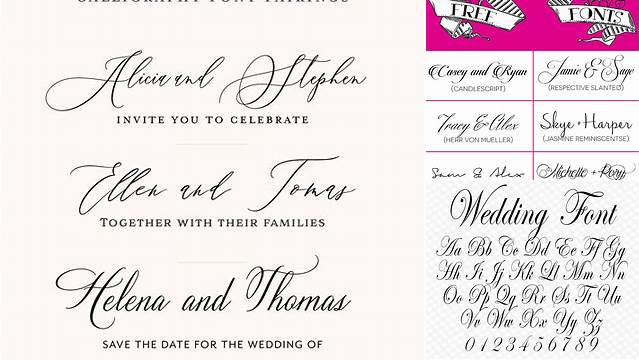
Free Cursive Fonts For Stunning Wedding Invitations
So, you're planning your big day, huh? Congratulations, guys! One of the most exciting parts of wedding planning is getting those invitations just right. And what's a wedding invitation without a beautiful, flowing cursive font? Finding the perfect font can feel like finding the perfect dress or the perfect venue – it needs to capture the essence of your special day. That's why we're diving deep into the world of free cursive fonts for wedding invitations. Yes, you heard that right – free! You don't have to break the bank to have stunning invitations. Let's explore the options and help you find the font that screams "you"!
Why Cursive Fonts are Perfect for Wedding Invitations
Let's be real, when it comes to wedding invitations, cursive fonts are the undisputed champions. They exude elegance, romance, and a touch of timeless charm that perfectly sets the tone for your celebration. But why is this the case? What makes these swooping, swirling letters so ideal for announcing your union? Well, think about it. Cursive fonts, with their connected strokes and graceful curves, mimic the fluidity of handwriting. This adds a personal touch to your invitations, making them feel more intimate and heartfelt. They whisper of handwritten love letters and cherished keepsakes, creating a sense of warmth and sincerity that perfectly reflects the love you share. Imagine your guests receiving an invitation adorned with delicate, flowing calligraphy. It immediately conveys a sense of sophistication and sets the stage for a memorable event. The visual appeal of cursive is undeniable. The intricate details and varied letterforms create a visual feast, drawing the eye and inviting your guests to delve into the details of your special day. It’s like a beautiful piece of art that also happens to be an invitation! Beyond the aesthetic appeal, cursive fonts also carry a certain weight of tradition. They evoke a sense of history and heritage, reminding us of classic wedding invitations and timeless love stories. Using a cursive font can subtly nod to this tradition while still allowing you to express your unique style and personality as a couple. The elegance of these fonts is versatile too. They pair beautifully with a variety of paper stocks, embellishments, and design styles. Whether you're going for a rustic-chic vibe, a modern minimalist aesthetic, or a classic black-tie affair, there's a cursive font out there that will complement your vision perfectly. You can use them for everything from the main invitation text to your names, dates, and even for creating elegant monograms. The key is to choose a font that is not only beautiful but also legible. You want your guests to be able to easily read the important details, so striking the right balance between style and clarity is crucial. We’ll talk more about legibility and font pairings later on, so keep reading!
Top Free Cursive Fonts for Wedding Invitations
Okay, let's get to the juicy part – the fonts! There are a plethora of free cursive fonts available online, but wading through them all can feel like an overwhelming task. Don't worry, guys, I've done the legwork for you! Here’s a curated list of some top-notch free cursive fonts that are perfect for adding that touch of elegance to your wedding invitations, along with some ideas on how to use them:
1. Great Vibes
Great Vibes is a classic choice for wedding invitations. It's a beautifully flowing script with elegant loops and flourishes. This font is highly legible, making it perfect for the main text of your invitation. The clean lines and graceful curves exude sophistication, making it an ideal choice for both formal and semi-formal weddings. Think black-tie affair or garden party elegance – Great Vibes can handle it all. What makes Great Vibes so versatile is its balance of elegance and readability. The letterforms are distinct and well-defined, preventing the script from becoming cluttered or difficult to decipher. This is crucial for wedding invitations, where clarity is paramount. You want your guests to be able to easily read the date, time, and location of your event, and Great Vibes ensures that they can. Imagine the words “You’re Invited” or the names of the happy couple rendered in this exquisite script. It immediately elevates the invitation, adding a touch of luxury without being ostentatious. The delicate swirls and flourishes catch the eye, but they don’t overwhelm the overall design. Instead, they add a subtle touch of glamour, making the invitation feel special and memorable. This font pairs beautifully with a variety of design styles, from minimalist and modern to traditional and romantic. You can use it on crisp, white cardstock for a classic look, or experiment with textured papers and soft colors for a more whimsical feel. It also works well with different printing techniques, such as letterpress or foil stamping, which can further enhance its elegance and sophistication. When using Great Vibes, consider pairing it with a simple sans-serif font for the body text or other secondary information. This creates a visual contrast that makes the cursive font stand out even more. Think of it as the perfect complement – the sans-serif provides a clean, modern counterpoint to the flowing script, resulting in a harmonious and balanced design.
2. Playlist Script
If you're looking for something a little more playful and modern, Playlist Script is an excellent choice. It has a casual, handwritten feel that's perfect for a relaxed or rustic-themed wedding. The brush-stroke style gives it a unique and personal touch, as if it were written just for your guests. Playlist Script brings a fresh and modern twist to the traditional cursive font, making it a wonderful choice for couples who want to break away from the norm while still maintaining an air of sophistication. The handwritten feel of this font is what sets it apart. It mimics the natural imperfections and variations of real handwriting, giving your invitations a personal and intimate touch. This is perfect for couples who want to convey a sense of warmth and authenticity to their guests. Imagine your guests receiving an invitation that looks as though you personally penned each and every word. It creates a connection and makes them feel like a cherished part of your celebration. The casual elegance of Playlist Script makes it incredibly versatile. It’s just as comfortable gracing the pages of a rustic-themed wedding invitation as it is adding a touch of flair to a modern, minimalist design. The brush-stroke style lends itself well to designs that incorporate natural elements, such as floral illustrations or textured paper. Think of kraft paper invitations adorned with Playlist Script, evoking a sense of down-to-earth charm and effortless style. Or picture it paired with delicate watercolor washes, creating a dreamy and romantic aesthetic. But Playlist Script isn't just for rustic or informal weddings. It can also bring a touch of personality to more formal affairs. By pairing it with elegant paper stocks and sophisticated color palettes, you can elevate its casual charm and create a truly unique and memorable invitation. Consider using it for your names or for a special quote or message, adding a personal touch to a classic design. When working with Playlist Script, it's important to keep legibility in mind. While its handwritten style is charming, it can be less legible than some other cursive fonts. To ensure clarity, use it sparingly and pair it with a clear, easy-to-read font for the body text. Also, consider the size of the font – larger sizes will enhance its readability and allow its unique brush-strokes to shine.
3. ** চ্যানেলের Script**
- চ্যানেলের Script* is another fantastic option that balances elegance with a touch of whimsy. This font has a flowing, calligraphic style with delicate lines and subtle flourishes. It's perfect for adding a touch of sophistication to your invitations without being overly formal. The beauty of * চ্যানেলের Script* lies in its ability to strike the perfect balance between elegance and playfulness. It’s a font that exudes sophistication without feeling stuffy or pretentious. The delicate lines and subtle flourishes add a touch of whimsy, making it an excellent choice for couples who want to convey a sense of joy and celebration. Picture your wedding invitations adorned with the graceful curves of * চ্যানেলের Script*. It immediately sets a tone of refined elegance, hinting at a sophisticated yet joyful occasion. The calligraphic style adds a touch of artistry, making your invitations feel like miniature works of art. It’s a font that invites your guests to anticipate a celebration filled with beauty and grace. What makes * চ্যানেলের Script* so versatile is its ability to adapt to various wedding styles and themes. It can seamlessly transition from classic and traditional designs to more modern and contemporary aesthetics. Pair it with crisp, white paper and classic black ink for a timeless look, or experiment with pastel shades and metallic accents for a more romantic and whimsical feel. Imagine using it for a garden wedding, where its delicate lines complement the natural beauty of the setting, or for a sophisticated ballroom affair, where it adds a touch of refined elegance. * চ্যানেলের Script* also works beautifully with different embellishments, such as delicate floral illustrations, embossed details, or even a touch of sparkle. These elements can further enhance its elegance and add a personalized touch to your invitations. The key is to use them sparingly, allowing the font to remain the focal point of the design. When incorporating * চ্যানেলের Script* into your wedding invitations, consider using it for your names, the date, and a few key phrases or headings. Pair it with a clean and legible sans-serif font for the body text to ensure that the important details are easy to read. This will create a visual hierarchy and allow the beauty of * চ্যানেলের Script* to truly shine. Remember, the goal is to create an invitation that is not only beautiful but also informative. * চ্যানেলের Script* helps you achieve both, adding a touch of elegance while ensuring that your guests have all the necessary information to celebrate with you.
4. Mr Dafoe
For a truly unique and vintage feel, Mr Dafoe is a fantastic choice. This font has a distinctive retro vibe with bold, swirly letters that are full of character. It's perfect for couples who want to add a touch of old-world charm to their invitations. Mr Dafoe instantly transports you to another era with its bold, swirly letters and distinctive retro vibe. It’s a font that exudes personality and charm, making it a wonderful choice for couples who want their wedding invitations to stand out from the crowd. Imagine your guests receiving an invitation adorned with the vintage flair of Mr Dafoe. It immediately sets a tone of playful elegance, hinting at a celebration that is both sophisticated and fun. The bold letterforms command attention, while the whimsical swirls add a touch of character and intrigue. It’s a font that invites your guests to step back in time and experience the romance of a bygone era. The unique aesthetic of Mr Dafoe makes it particularly well-suited for vintage-themed weddings, but it can also add a touch of personality to more contemporary designs. Think of invitations printed on aged paper with sepia-toned ink, evoking the charm of antique postcards and handwritten letters. Or picture it paired with bold colors and geometric patterns, creating a modern twist on a classic style. The key to working with Mr Dafoe is to embrace its distinctive personality. It’s a font that demands attention, so it’s important to use it thoughtfully and strategically. Consider using it for your names, the date, or a short, impactful phrase. Pair it with a simple and legible sans-serif font for the body text to ensure that the important details are clear and easy to read. When incorporating Mr Dafoe into your wedding invitations, think about the overall theme and aesthetic of your event. It’s a font that can add a touch of whimsy to a formal affair or reinforce the vintage charm of a more relaxed celebration. Experiment with different paper stocks, colors, and embellishments to create a design that truly reflects your personal style. Remember, Mr Dafoe is a font that loves to be noticed. So, don’t be afraid to let its unique personality shine through. With a little creativity and careful planning, you can use Mr Dafoe to create wedding invitations that are both memorable and charming.
5. ন্দত Script
If you're envisioning a truly elegant and refined wedding, ন্দত Script might be the perfect fit. This font has a sophisticated and flowing style with delicate lines and graceful curves. It exudes a sense of timeless beauty, making it ideal for formal wedding invitations. ন্দত Script is the epitome of refined elegance, a font that embodies timeless beauty and sophistication. Its flowing style, delicate lines, and graceful curves create a sense of classic charm, making it an ideal choice for couples who envision a formal and elegant wedding celebration. Imagine your guests receiving an invitation adorned with the exquisite calligraphy of ন্দত Script. It immediately sets a tone of understated luxury, hinting at a celebration that is both sophisticated and romantic. The flowing letterforms evoke a sense of grace and artistry, while the delicate lines add a touch of ethereal beauty. It’s a font that invites your guests to anticipate an event filled with timeless elegance and refined details. The versatility of ন্দত Script lies in its ability to seamlessly complement a variety of wedding styles and themes. It’s just as comfortable gracing the pages of a traditional black-tie invitation as it is adding a touch of sophistication to a more contemporary design. Pair it with crisp, white paper, classic black ink, and delicate embossing for a truly timeless look, or experiment with soft, pastel shades and subtle metallic accents for a more romantic and ethereal feel. Think of invitations adorned with ন্দত Script and delicate floral illustrations, evoking the charm of a classic fairytale wedding, or picture it paired with modern typography and clean lines, creating a sophisticated and contemporary aesthetic. When incorporating ন্দত Script into your wedding invitations, pay close attention to the details. The font’s delicate lines require careful printing to ensure clarity and prevent any blurring or imperfections. Consider using high-quality paper and a professional printing service to achieve the best results. To make the most of ন্দত Script's elegance, use it sparingly and strategically. It’s best suited for your names, the date, and a few key phrases or headings. Pair it with a clean and legible sans-serif font for the body text to ensure that all the important details are easy to read. This will create a visual hierarchy and allow the beauty of ন্দত Script to truly shine.
Tips for Using Cursive Fonts on Wedding Invitations
Okay, so you've picked out your perfect cursive font. Awesome! But choosing the font is just the first step. Now, you need to use it effectively to create invitations that are both beautiful and functional. Here are some tips to keep in mind:
Legibility is Key: This is the golden rule of font selection. No matter how gorgeous a font is, if your guests can't read it, it's a no-go. Make sure the cursive font you choose is clear and easy to decipher, especially for important details like the date, time, and location. If you're worried about legibility, consider using a larger font size or pairing the cursive font with a simpler, sans-serif font for the body of the text. Think of it this way: your invitations are meant to inform as well as impress. They need to convey essential information in a way that is clear and accessible to everyone. A beautifully designed invitation is only effective if it can be easily read and understood. Legibility is not just about choosing the right font; it’s also about considering the overall design of your invitation. Factors such as the contrast between the text and the background, the spacing between letters and words, and the size and weight of the font all play a role in how easy it is to read. If you’re using a dark font on a light background, make sure there’s sufficient contrast to make the text stand out. Similarly, if you’re using a light font on a dark background, ensure that the background isn’t too busy or distracting. The spacing between letters and words can also significantly impact legibility. If the letters are too close together, they can become difficult to distinguish, making the text appear cluttered. Conversely, if the letters are too far apart, the text can feel disjointed and lose its flow. Experiment with different spacing options to find the sweet spot that maximizes readability. The size and weight of the font are equally important. A font that is too small can be difficult to read, especially for those with visual impairments. A font that is too thin may also appear faint and hard to see. On the other hand, a font that is too large or too bold can overwhelm the design and make the invitation look cluttered. The key is to strike a balance that ensures readability without sacrificing the overall aesthetic appeal. Remember, the goal is to create an invitation that is both visually stunning and easy to understand. By prioritizing legibility, you’ll ensure that your guests receive all the important information they need while also appreciating the beauty of your design.
Pairing is Caring: Cursive fonts are often best paired with a simpler, sans-serif font. This creates a visual balance and prevents your invitation from looking too busy. Use the cursive font for your names or headings, and the sans-serif font for the body of the text. The art of font pairing is crucial in creating a visually harmonious and effective design. When it comes to wedding invitations, where elegance and clarity are paramount, pairing a cursive font with a simpler sans-serif font is a classic and foolproof approach. Think of it as creating a dialogue between two distinct voices. The cursive font, with its flowing lines and graceful curves, takes center stage, adding a touch of romance and sophistication. Meanwhile, the sans-serif font, with its clean lines and straightforward letterforms, provides a grounding element, ensuring that the message is clear and easy to read. The contrast between the two fonts is what makes the pairing so effective. The cursive font adds a touch of personality and flair, while the sans-serif font provides a sense of stability and order. This visual balance is essential in preventing your invitation from looking too cluttered or overwhelming. Imagine an invitation where every word is written in a swirling, elaborate cursive font. While it might seem beautiful at first glance, it would quickly become difficult to decipher and the overall message would get lost. By using the cursive font sparingly, for your names, headings, or other key phrases, you allow it to shine without sacrificing legibility. The sans-serif font, on the other hand, can be used for the body of the text, where clarity is essential. This includes details such as the date, time, location, and any other important information that your guests need to know. A clean and simple sans-serif font ensures that these details are easily readable, allowing your guests to quickly grasp the essential information. When choosing a sans-serif font to pair with your cursive font, look for one that complements the style and weight of the cursive font. A heavier sans-serif font can provide a strong contrast to a delicate cursive font, while a lighter sans-serif font can create a more subtle and elegant pairing. Experiment with different combinations to find the perfect balance that reflects your personal style and the overall tone of your wedding. Remember, the goal is to create a cohesive and visually appealing invitation that effectively communicates your message. By mastering the art of font pairing, you can elevate your design and ensure that your invitations are both beautiful and functional.
Consider the Theme: Make sure the font you choose fits the overall theme and style of your wedding. A formal wedding calls for a more traditional cursive font, while a rustic wedding might be better suited for a more relaxed, handwritten-style font. The font you choose for your wedding invitations is more than just a stylistic choice; it’s a powerful tool that can set the tone and convey the overall theme of your special day. Just as your venue, decor, and attire contribute to the overall ambiance, your font choice should align with the style and personality of your wedding. Think of your font as a visual voice that speaks to your guests, giving them a glimpse of what they can expect on your wedding day. A formal wedding, with its air of sophistication and tradition, calls for a more classic and refined cursive font. These fonts often feature elegant flourishes, graceful curves, and a sense of timeless beauty. They evoke a sense of grandeur and formality, hinting at a celebration filled with elegance and grace. Imagine invitations adorned with a flowing script that exudes classic charm, setting the stage for a sophisticated black-tie affair. On the other hand, a rustic wedding, with its relaxed and natural atmosphere, might be better suited for a more casual and handwritten-style font. These fonts often have a more organic and imperfect feel, mimicking the look of real handwriting. They convey a sense of warmth and authenticity, perfect for a celebration that embraces the beauty of nature and the charm of simplicity. Think of invitations printed on kraft paper with a font that looks as though it was penned by hand, creating a warm and inviting feel. For a modern wedding, with its clean lines and contemporary aesthetic, you might opt for a cursive font that is both elegant and minimalist. These fonts often feature a streamlined design with fewer embellishments, reflecting a sense of modern sophistication. Imagine invitations with a sleek and stylish font paired with a bold color palette and geometric patterns, creating a contemporary and chic look. When choosing a font, consider the overall theme of your wedding and how you want your guests to feel when they receive your invitation. Do you want them to feel like they’re stepping into a fairytale? Or are you aiming for a more laid-back and bohemian vibe? Your font choice should reflect your vision and help to create the desired atmosphere. Remember, the details matter. By carefully considering the font you choose, you can create wedding invitations that are not only beautiful but also perfectly aligned with the theme and style of your special day.
Test it Out: Before you commit to a font, always test it out with your names and other important information. This will give you a better idea of how it looks and feels in context. You wouldn’t buy a pair of shoes without trying them on, would you? The same principle applies to fonts! Before you commit to a particular cursive font for your wedding invitations, it’s essential to test it out with your names, dates, and other key information. This simple step can save you from potential headaches down the road and ensure that your invitations look as stunning as you envision. Think of testing your font as a dress rehearsal for your invitations. It allows you to see how the font performs in real-world scenarios, revealing any potential issues that you might not have noticed otherwise. A font that looks beautiful in a sample image might not translate as well when used with your specific text. Certain letter combinations can look awkward or crowded, while others might be difficult to read. By testing the font with your own text, you can identify these potential problems and make informed decisions. One of the most important things to consider is how your names look in the chosen font. Your names are the focal point of your invitation, so it’s crucial that they are displayed in a way that is both elegant and legible. Try out different font sizes and weights to see which ones best capture the essence of your style and personality. Pay attention to the spacing between letters and words, as this can significantly impact the overall look and feel of your names. In addition to your names, test the font with other important information, such as the date, time, and location of your wedding. These details need to be clear and easy to read, so it’s essential to ensure that the font remains legible even when used in smaller sizes. Try printing out a sample invitation with your chosen font and text. This will give you a better sense of how the font looks in print and whether it effectively conveys the message you want to send. You can also show the sample to friends and family members to get their feedback. Do they find the font easy to read? Does it match the overall style and theme of your wedding? Their insights can be invaluable in helping you make the final decision. Remember, your wedding invitations are the first glimpse your guests will have of your special day. By taking the time to test out your font, you can ensure that your invitations are both beautiful and informative, setting the stage for a celebration that is as unforgettable as your love story.
Where to Download Free Cursive Fonts
So, where can you find these amazing free cursive fonts? There are tons of websites out there offering free fonts, but not all of them are created equal. Here are a few reputable sites where you can safely download free fonts for your wedding invitations:
Google Fonts: Google Fonts is a treasure trove of high-quality, free fonts. They have a wide selection of cursive fonts, all of which are easy to download and use. Plus, they're web-friendly, so you can use them on your wedding website too! Google Fonts has become a go-to resource for designers and creatives around the world, and for good reason. It’s a treasure trove of high-quality, open-source fonts that are not only free to use but also incredibly versatile and user-friendly. When it comes to finding the perfect cursive font for your wedding invitations, Google Fonts offers a plethora of options to suit every style and taste. The beauty of Google Fonts lies in its simplicity and accessibility. The website is clean and intuitive, making it easy to browse and filter fonts based on various criteria, such as style, weight, and number of styles. You can also preview how a font looks with your own text, allowing you to get a clear sense of whether it’s the right fit for your project. One of the biggest advantages of using Google Fonts is the sheer variety of cursive fonts available. Whether you’re looking for a classic and elegant script, a modern and playful brushstroke font, or a vintage-inspired calligraphic style, you’re sure to find something that catches your eye. The fonts are meticulously designed and crafted, ensuring that they are not only aesthetically pleasing but also highly legible and functional. Google Fonts also makes it incredibly easy to download and use the fonts in your projects. The fonts are available in a variety of formats, including TrueType (TTF) and OpenType (OTF), making them compatible with most design software and operating systems. You can download the fonts directly to your computer and install them, or you can use the Google Fonts API to embed the fonts directly into your website or online application. This flexibility makes Google Fonts a convenient and efficient choice for both print and web design. Another major benefit of Google Fonts is that all the fonts are open-source, meaning that they are free to use for both personal and commercial projects. This makes it an incredibly valuable resource for budget-conscious couples who are planning their wedding and want to create beautiful invitations without breaking the bank. You can download and use the fonts without any licensing fees or restrictions, giving you complete creative freedom. Google Fonts also offers a wealth of resources and support to help you make the most of its font library. The website includes detailed information about each font, including its designer, history, and recommended pairings. You can also find tutorials and articles on typography best practices, helping you to create visually stunning and effective designs. Whether you’re a seasoned designer or a novice, Google Fonts provides the tools and resources you need to elevate your wedding invitations and make them truly memorable.
DaFont: DaFont is another excellent resource for free fonts. They have a massive collection, with a wide range of cursive styles to choose from. Just be sure to check the license for each font, as some may only be free for personal use. DaFont has long been a favorite among designers, hobbyists, and anyone looking to add a unique touch to their projects. This vast online archive boasts a massive collection of fonts, ranging from classic serifs and clean sans-serifs to whimsical scripts and decorative display faces. When it comes to finding the perfect free cursive font for your wedding invitations, DaFont is a treasure trove waiting to be explored. The sheer volume of fonts available on DaFont can be both a blessing and a curse. With so many options to choose from, it’s easy to get lost in the sea of typography. However, DaFont provides a user-friendly interface with a variety of categories and filters to help you narrow down your search. You can browse fonts by style, theme, author, or even license type, making it easier to find exactly what you’re looking for. One of the main draws of DaFont is its extensive selection of free fonts. The site is a haven for independent font designers and type enthusiasts who generously share their creations with the world. This means you can find a wide range of unique and creative cursive fonts that you won’t find anywhere else. Whether you’re looking for a delicate calligraphy script, a bold and playful brushstroke font, or a vintage-inspired hand-lettered style, DaFont has something to suit every taste and wedding theme. However, it’s important to exercise caution when downloading fonts from DaFont, as not all fonts are created equal. The quality of fonts on DaFont can vary significantly, so it’s essential to take the time to preview and test fonts before using them in your wedding invitations. Pay attention to the spacing, kerning, and overall legibility of the font. A beautiful font is only effective if it’s also easy to read. Another crucial aspect to consider when using DaFont is font licensing. While most fonts on DaFont are free for personal use, some may have restrictions on commercial use. It’s essential to carefully review the license information for each font before using it in your wedding invitations, especially if you plan to sell or distribute your invitations commercially. Most font designers provide clear licensing information on their font pages, but it’s always best to double-check to avoid any copyright infringements. Despite these potential pitfalls, DaFont remains a valuable resource for finding free cursive fonts for your wedding invitations. With its vast collection and user-friendly interface, it offers a wealth of creative possibilities for couples on a budget. Just remember to exercise caution, preview fonts carefully, and always respect font licensing agreements. With a little diligence, you can discover hidden typographic gems that will add a touch of elegance and personality to your special day.
FontSpace: FontSpace is another great option for finding free fonts. They have a clean and easy-to-navigate website, and they offer a wide variety of cursive fonts. Again, be sure to check the license before using a font for commercial purposes. FontSpace has emerged as a popular online destination for designers, creatives, and anyone seeking a diverse collection of free fonts. With its clean and user-friendly interface, FontSpace offers a vast library of typography, making it an excellent resource for finding the perfect cursive font for your wedding invitations. The site boasts an impressive selection of fonts, ranging from classic and elegant scripts to modern and playful hand-lettered styles. The ease of navigation on FontSpace is one of its key strengths. The website is well-organized, allowing users to easily browse fonts by category, style, or popularity. You can also use the search bar to quickly find specific fonts or keywords. The clean design and intuitive layout make FontSpace a pleasure to use, even for those who are new to font hunting. One of the standout features of FontSpace is its extensive collection of free fonts. The site hosts a diverse range of typography from independent designers and foundries, making it a treasure trove for unique and creative fonts. Whether you’re looking for a delicate calligraphy script to add a touch of romance to your invitations or a bold brushstroke font to make a statement, FontSpace has something to suit every wedding theme and personal style. The fonts on FontSpace are available for download in various formats, including TrueType (TTF) and OpenType (OTF), ensuring compatibility with most design software and operating systems. The download process is straightforward, allowing you to quickly access and install the fonts on your computer. Before using a font from FontSpace in your wedding invitations, it’s crucial to pay attention to the licensing terms. While many fonts on FontSpace are free for personal use, some may have restrictions on commercial use. It’s essential to carefully review the license information provided by the font designer to ensure that you comply with their terms. Most font designers include a license file or information on the font’s download page, outlining the permitted uses and any restrictions. If you’re unsure about the licensing terms, it’s always best to contact the font designer directly for clarification. To help you find the perfect font for your wedding invitations, FontSpace offers a range of useful features. You can preview fonts with your own text, allowing you to see how they look with your names, dates, and other important information. You can also save your favorite fonts to a collection, making it easy to compare and choose the best option. FontSpace also has a vibrant community forum where designers and font enthusiasts share their work, ask questions, and offer advice. This can be a valuable resource for getting inspiration, troubleshooting issues, and discovering new fonts. Overall, FontSpace is a fantastic resource for finding free cursive fonts for your wedding invitations. Its clean interface, extensive collection, and helpful features make it a top choice for couples who want to add a touch of personality and style to their special day. Just remember to always check the font license before using a font commercially, and you’ll be well on your way to creating stunning and memorable invitations.
Finding the perfect cursive font for your wedding invitations doesn't have to be a stressful experience. With so many free options available, you can create beautiful and elegant invitations without blowing your budget. Remember to prioritize legibility, consider your wedding theme, and don't be afraid to experiment until you find the font that truly captures your vision. Happy planning, guys! So, there you have it! A comprehensive guide to finding and using the best free cursive fonts for your wedding invitations. Remember, your invitations are the first impression your guests will have of your big day, so make them count! Choose a font that reflects your personality as a couple and sets the tone for a celebration that is uniquely yours. With a little creativity and these helpful tips, you'll be well on your way to creating wedding invitations that are both beautiful and memorable. Good luck, and congratulations on your upcoming wedding!